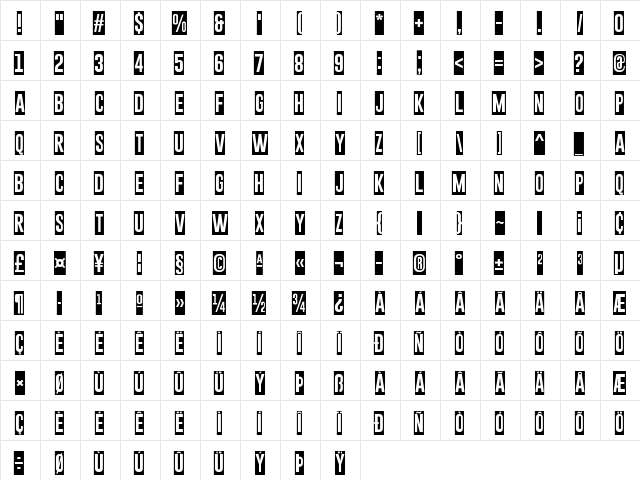
Gobold Blocky Regular
| Designer | Situjuh Nazara |
Design Context for Gobold Blocky Typeface
Gobold Blocky takes a measured approach to typography — its balanced proportions and neutral character make it a reliable workhorse for both digital and print work. The heavy weight commands attention and anchors typographic hierarchies.